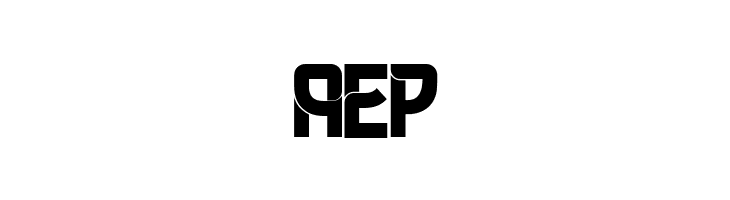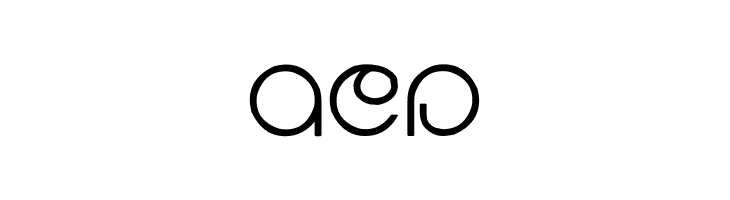
( Fonts by Vladimir Nikolic - www.creativefabrica.com/designer/vladimirnikolic/ - Personal-use only. For commercial use please contact owner. ) A 3D block font with bold outlines and geometric style. Download 40 Downloads@WebFont
( Fonts by Vladimir Nikolic - www.creativefabrica.com/designer/vladimirnikolic/ - Personal-use only. For commercial use please contact owner. ) A 3D block font with outlined characters and shadow effects. Download 58 Downloads@WebFont
( Fonts by Vladimir Nikolic - Personal-use only. For commercial use please contact owner. ) A bold, geometric, and condensed font with a modern, edgy style. Download 36 Downloads@WebFont
( Fonts by Vladimir Nikolic - Personal-use only. For commercial use please contact owner. ) A bold, geometric font with a modern and futuristic style. Download 26 Downloads@WebFont
( Fonts by Vladimir Nikolic - Personal-use only. For commercial use please contact owner. ) A modern, ultra-condensed font with geometric and sleek letterforms. Download 29 Downloads@WebFont
( Fonts by Vladimir Nikolic - www.creativefabrica.com/designer/vladimirnikolic/ - Personal-use only. For commercial use please contact owner. ) A bold, geometric font with a layered, dynamic design. Download 86 Downloads@WebFont